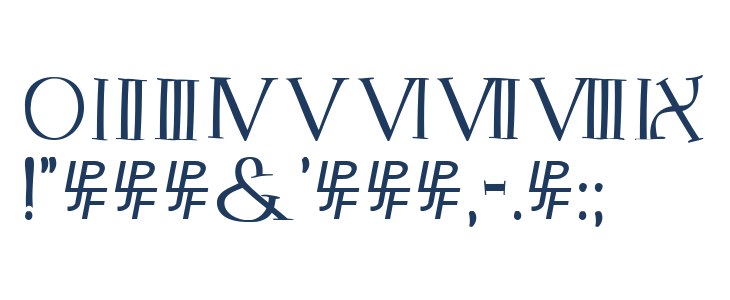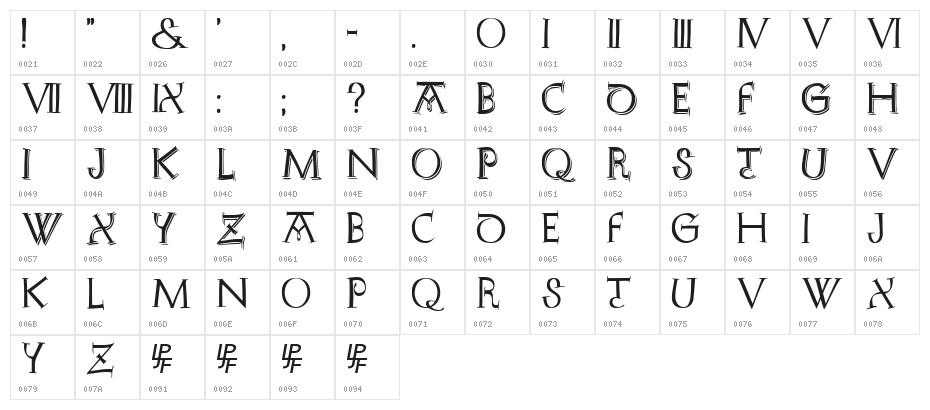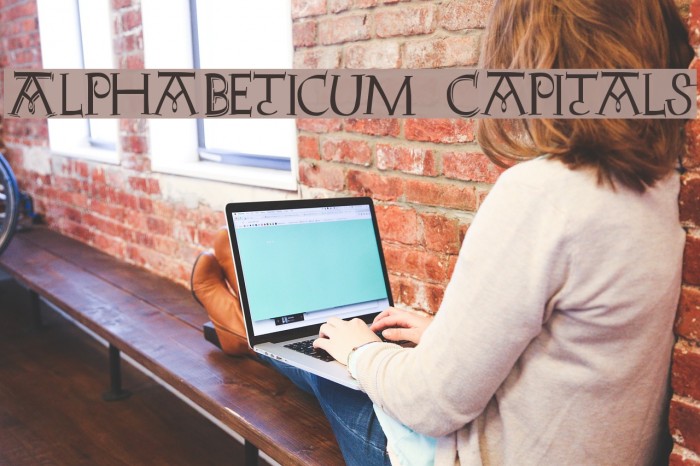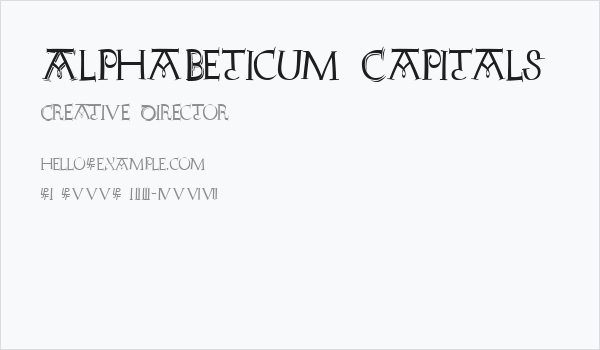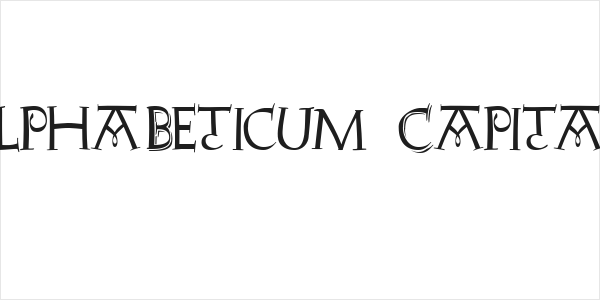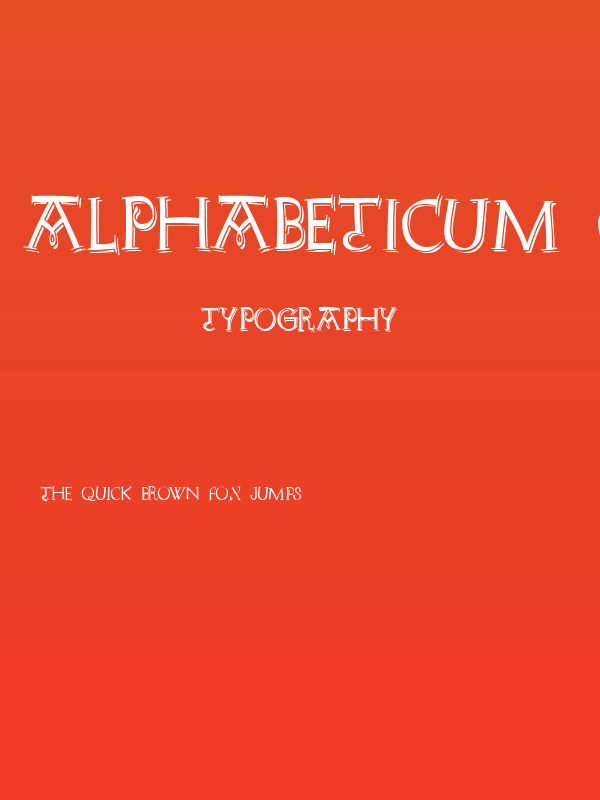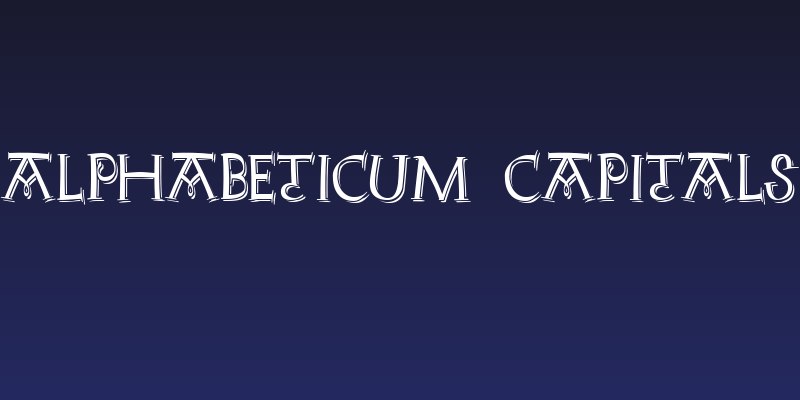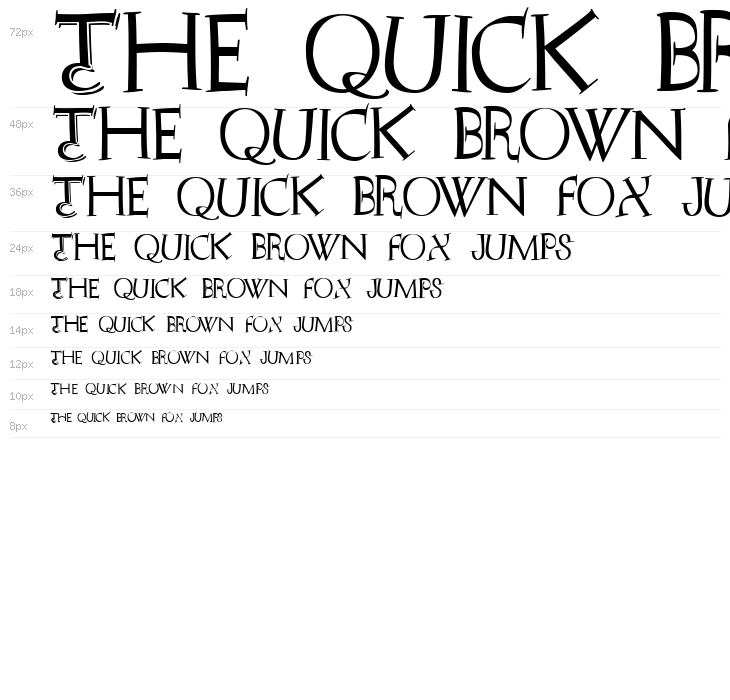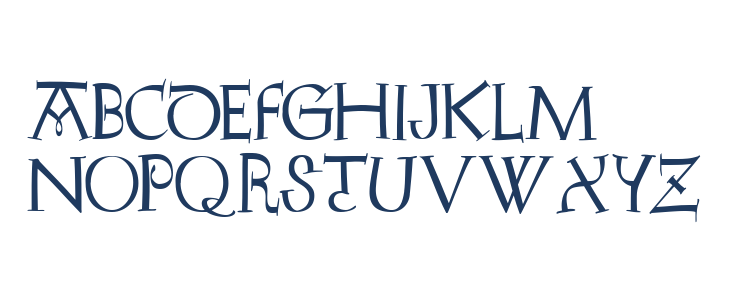
AlphaBeticum Capitals Font
AlphaBeticum Capitals Description
This font features a bold and decorative style with intricate details that give it a unique and artistic flair. The uppercase letters are characterized by sharp angles and pointed serifs, creating a dramatic and eye-catching appearance. The lowercase letters maintain a consistent style, with some characters featuring elongated strokes and elegant curves. The numerals are stylized with a similar decorative touch, enhancing the overall aesthetic. Special characters are designed with matching embellishments, ensuring a cohesive look across all glyphs. This font's distinct style makes it suitable for projects that require a strong visual impact.
| Proposed Projects | Ideal for branding, posters, book covers, and any design needing a dramatic and artistic touch. |